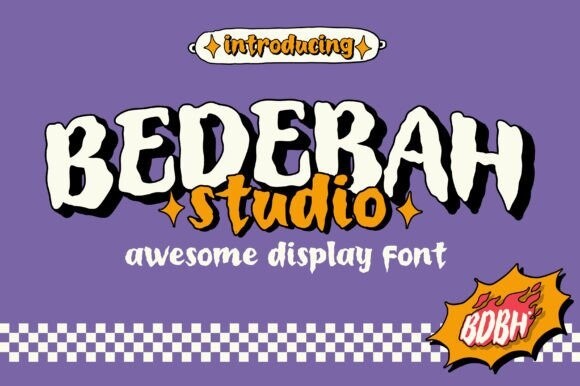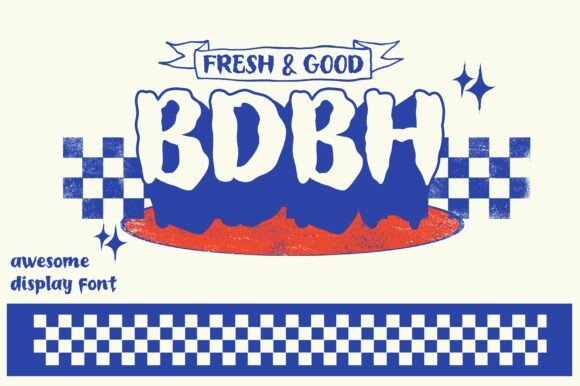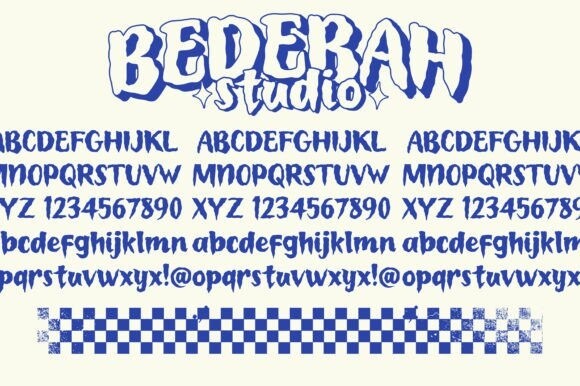
Bedebah Font
Bedebah Font is a bold and thick lettered display font suitable for a wide spectrum of applications. It is suitable for designs such as t-shirts, sportswear, logos, advertisements, clothing, and more.